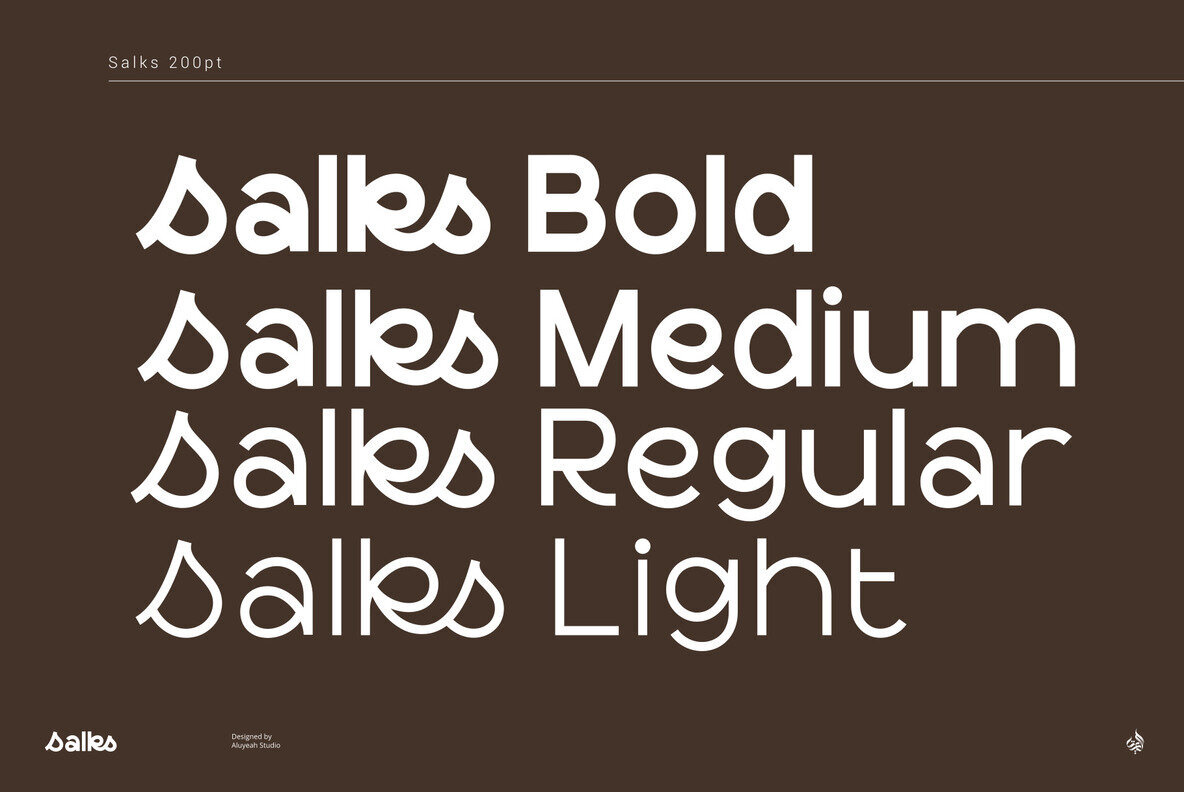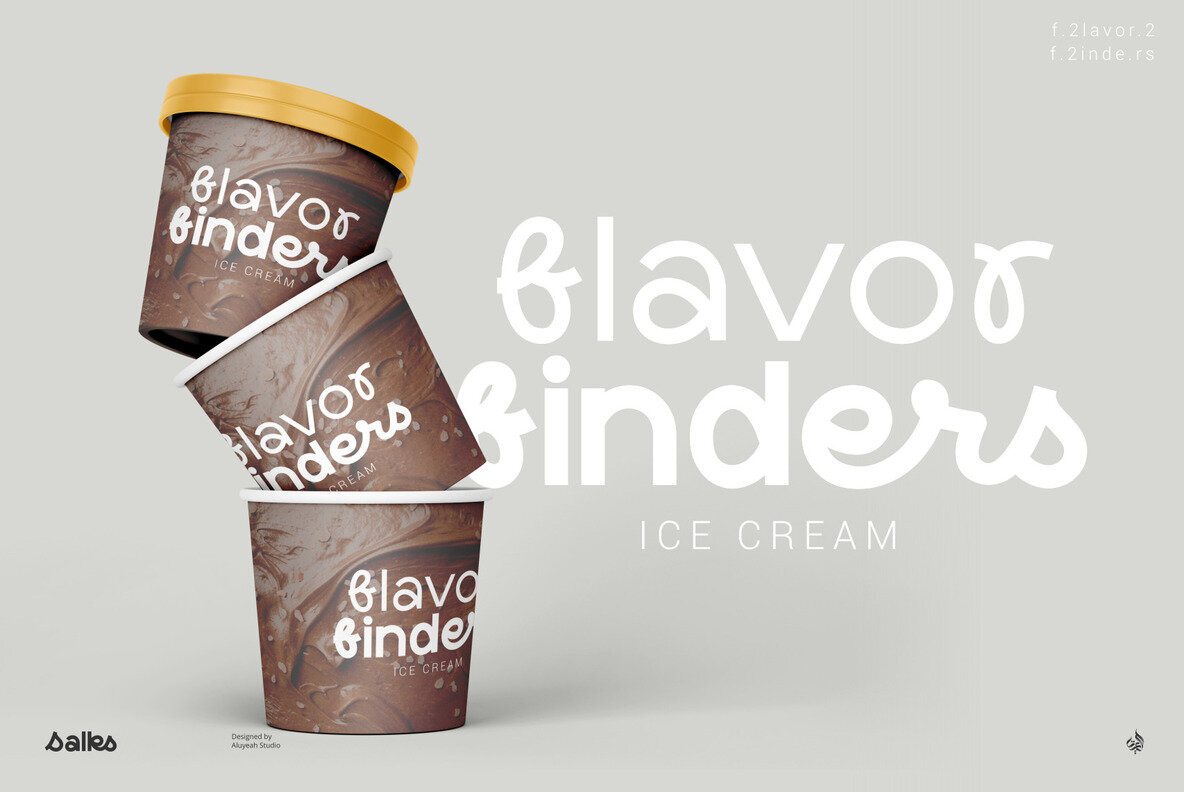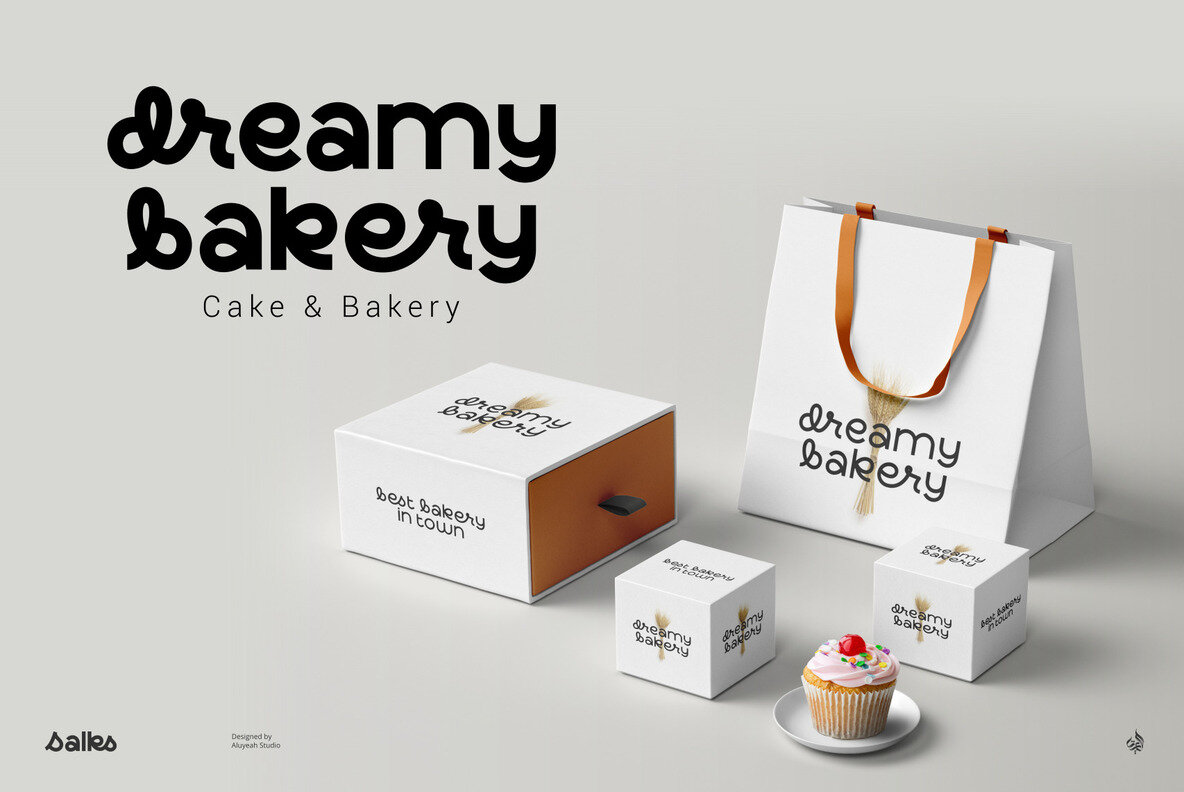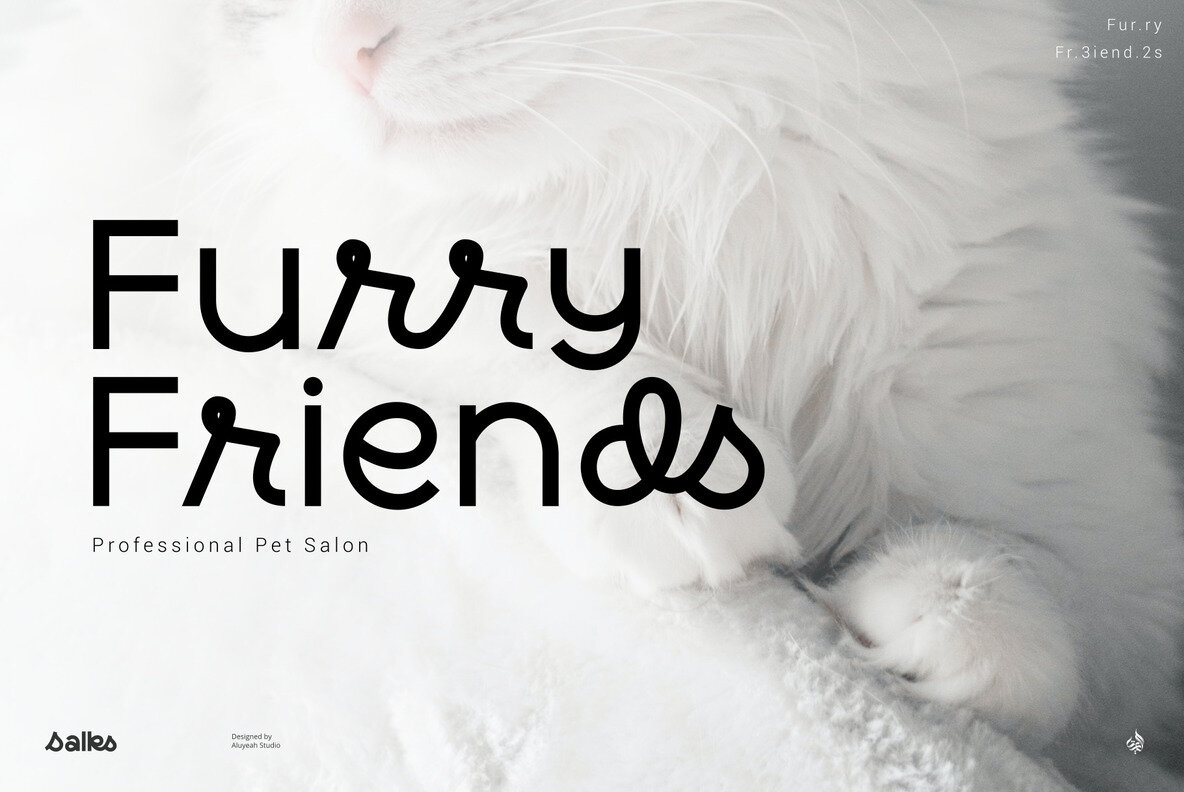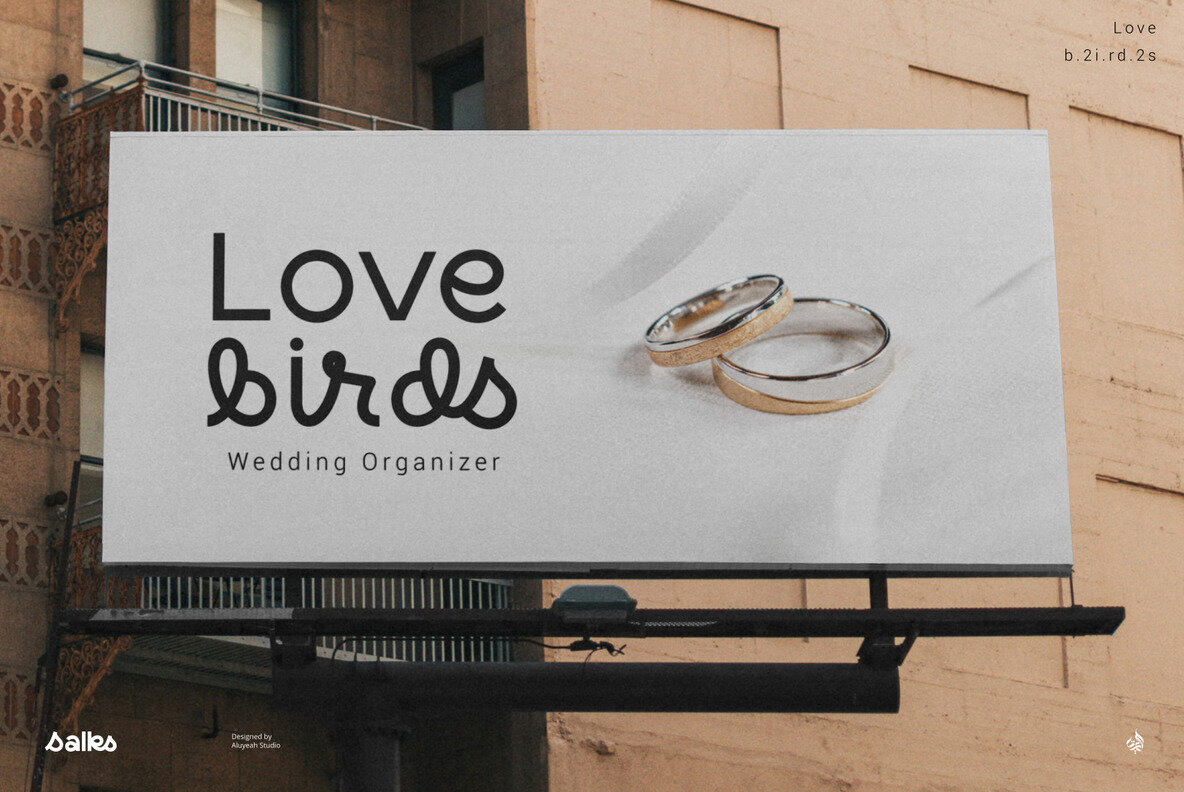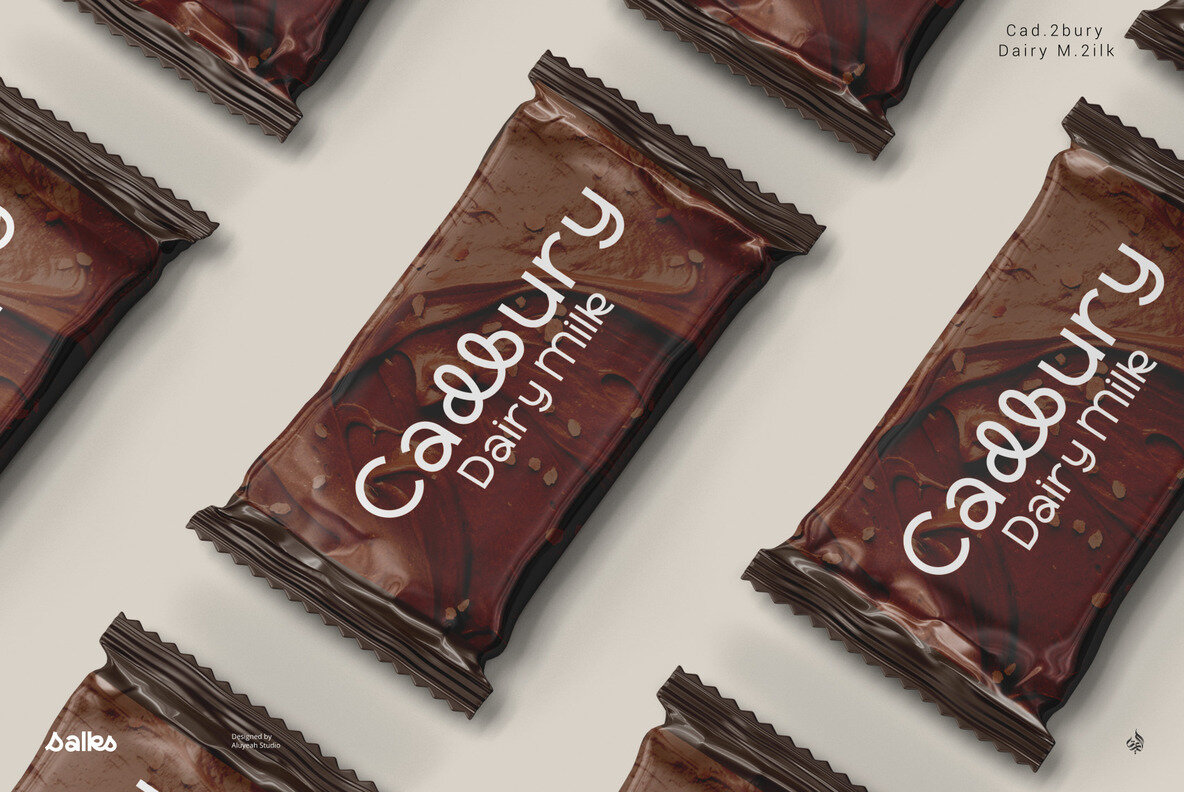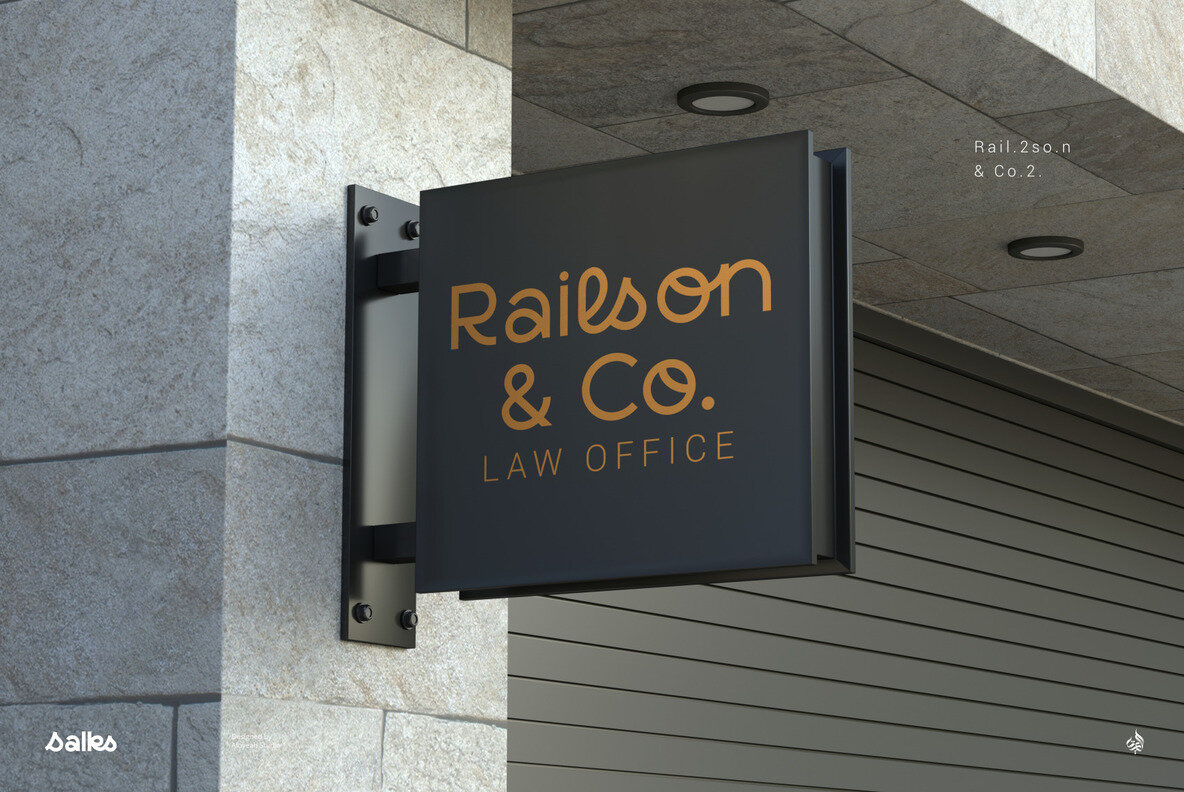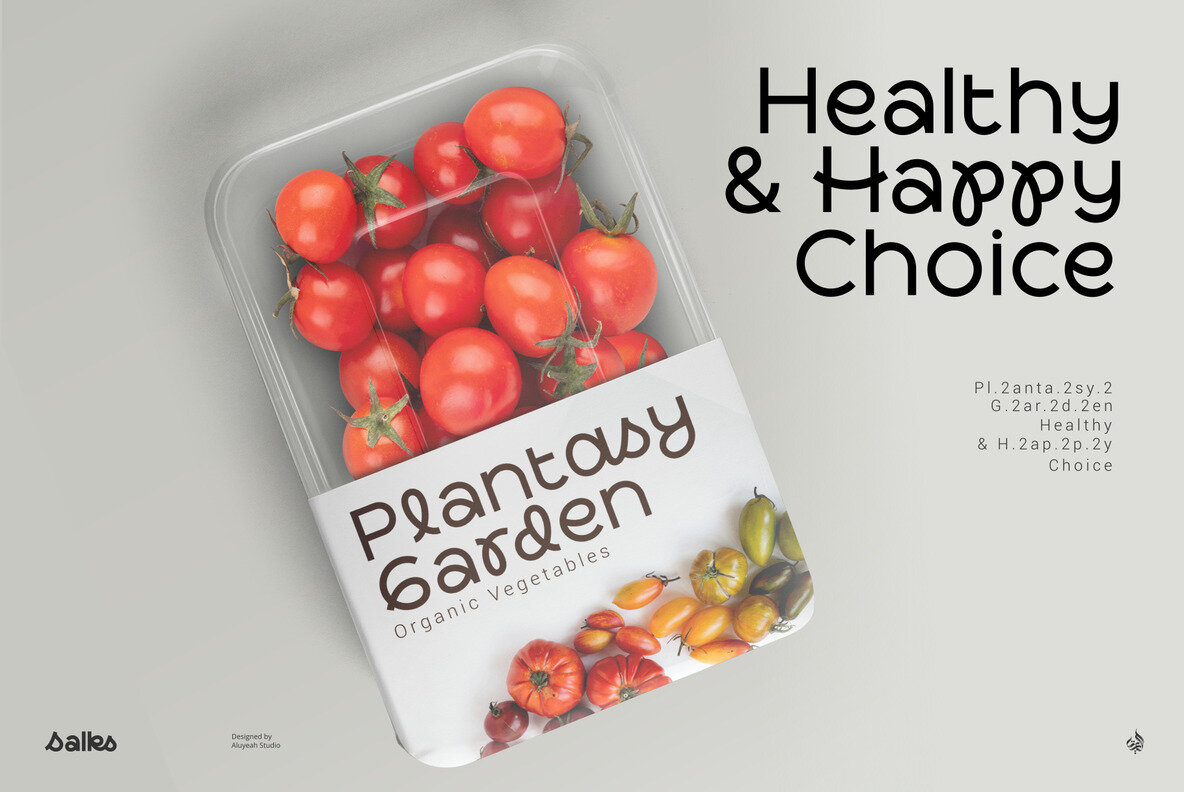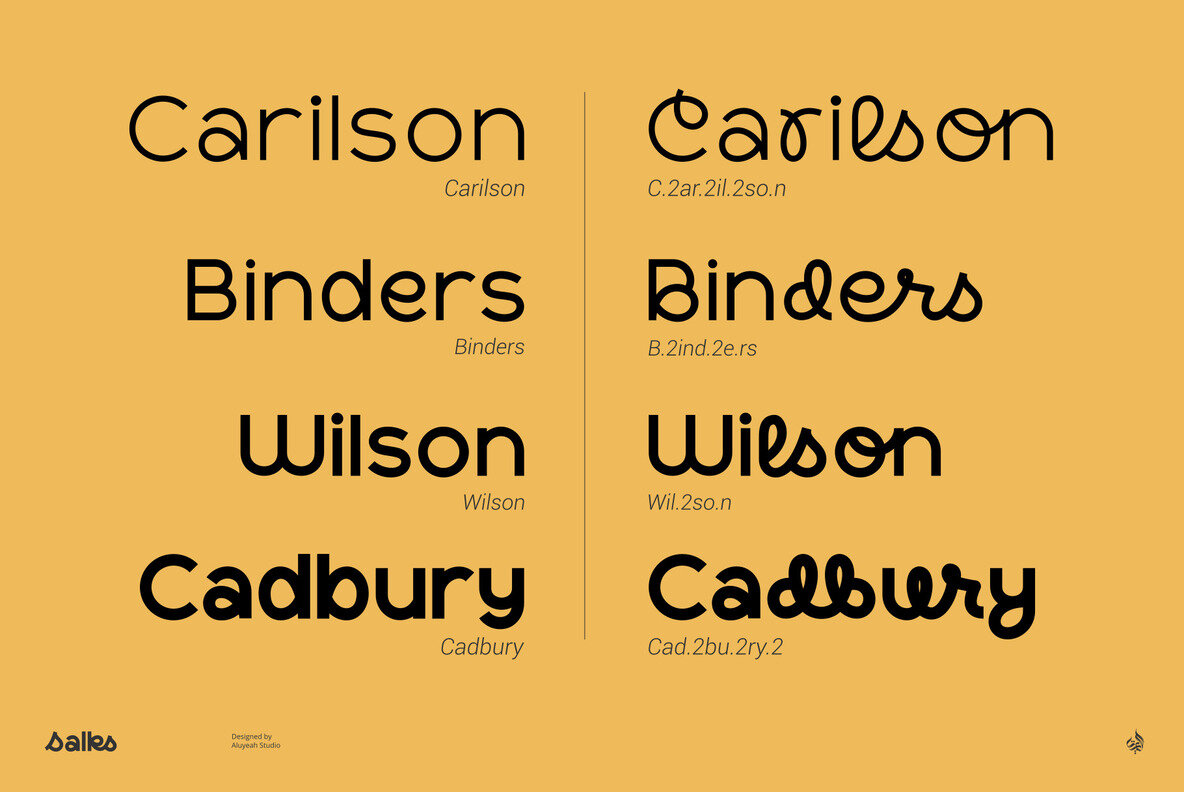
Salks Font
Salks is a vibrant and joyful display typeface designed to infuse happiness into your creative projects. With its playful nature, it is sure to bring a smile to everyone's face. To achieve the delightful design results similar to the preview, simply type S.2alk.s in your design software. Experience the joy and creativity that Salks can bring to your work.Salks: Joyful Display Typeface With Playful Ligatures